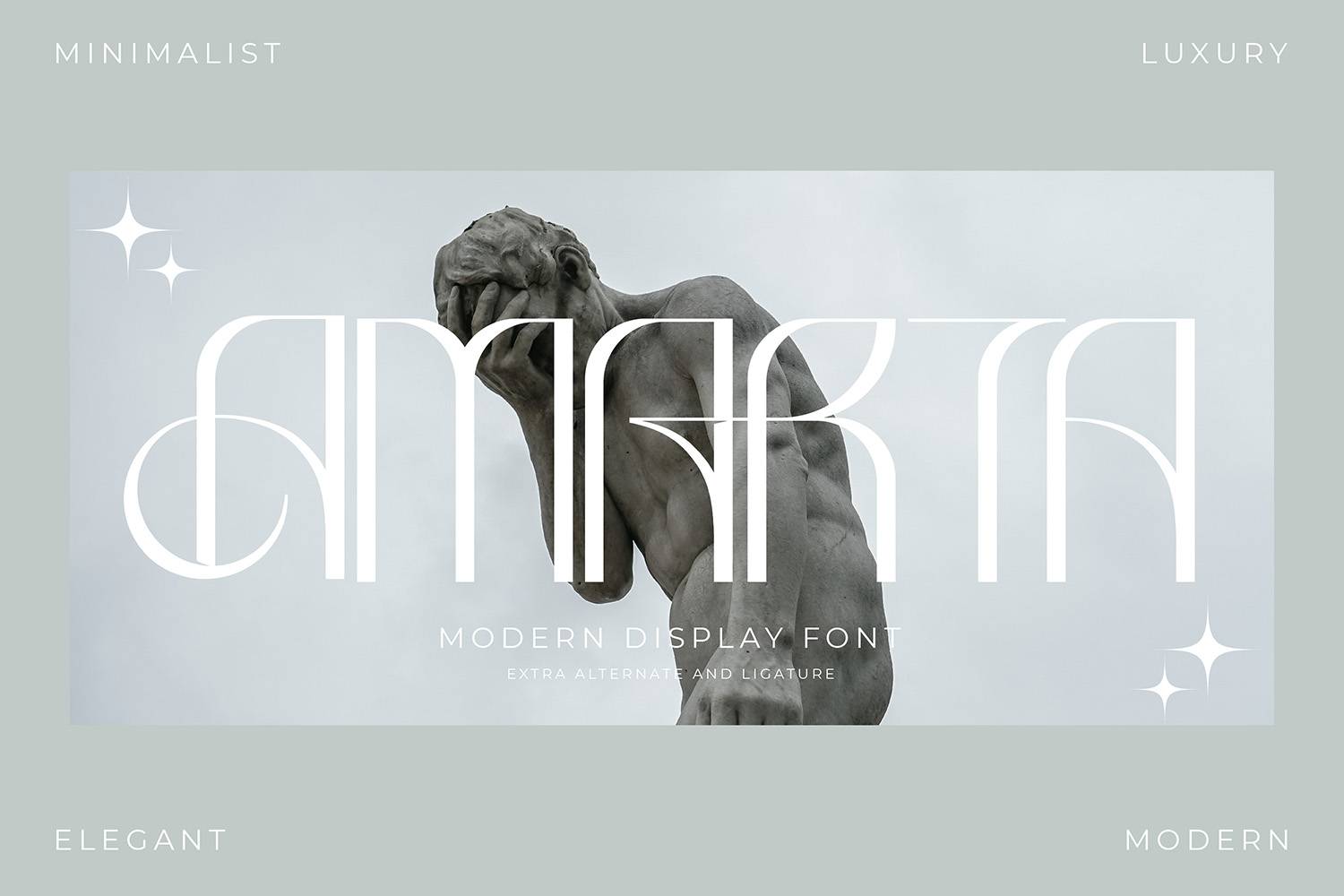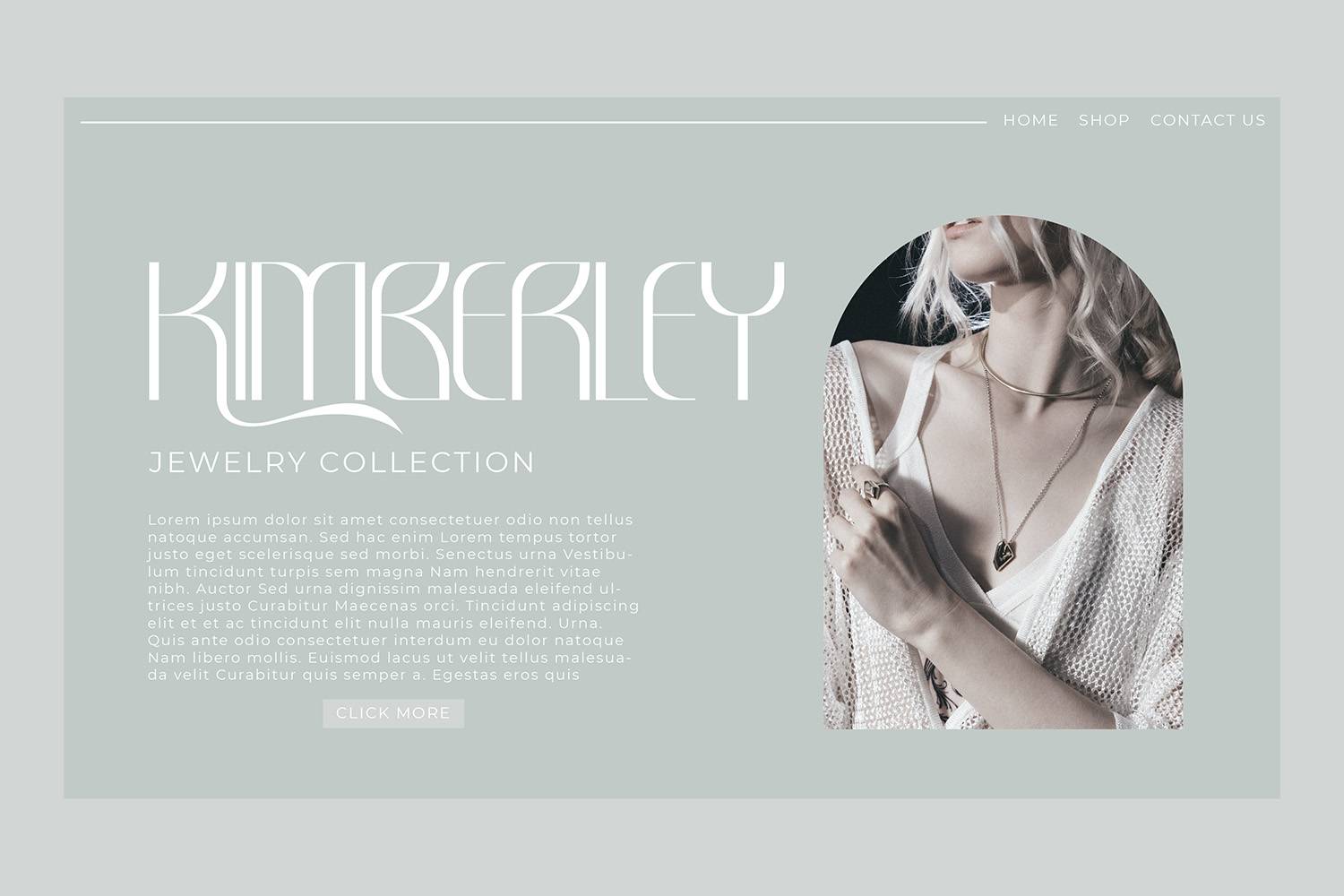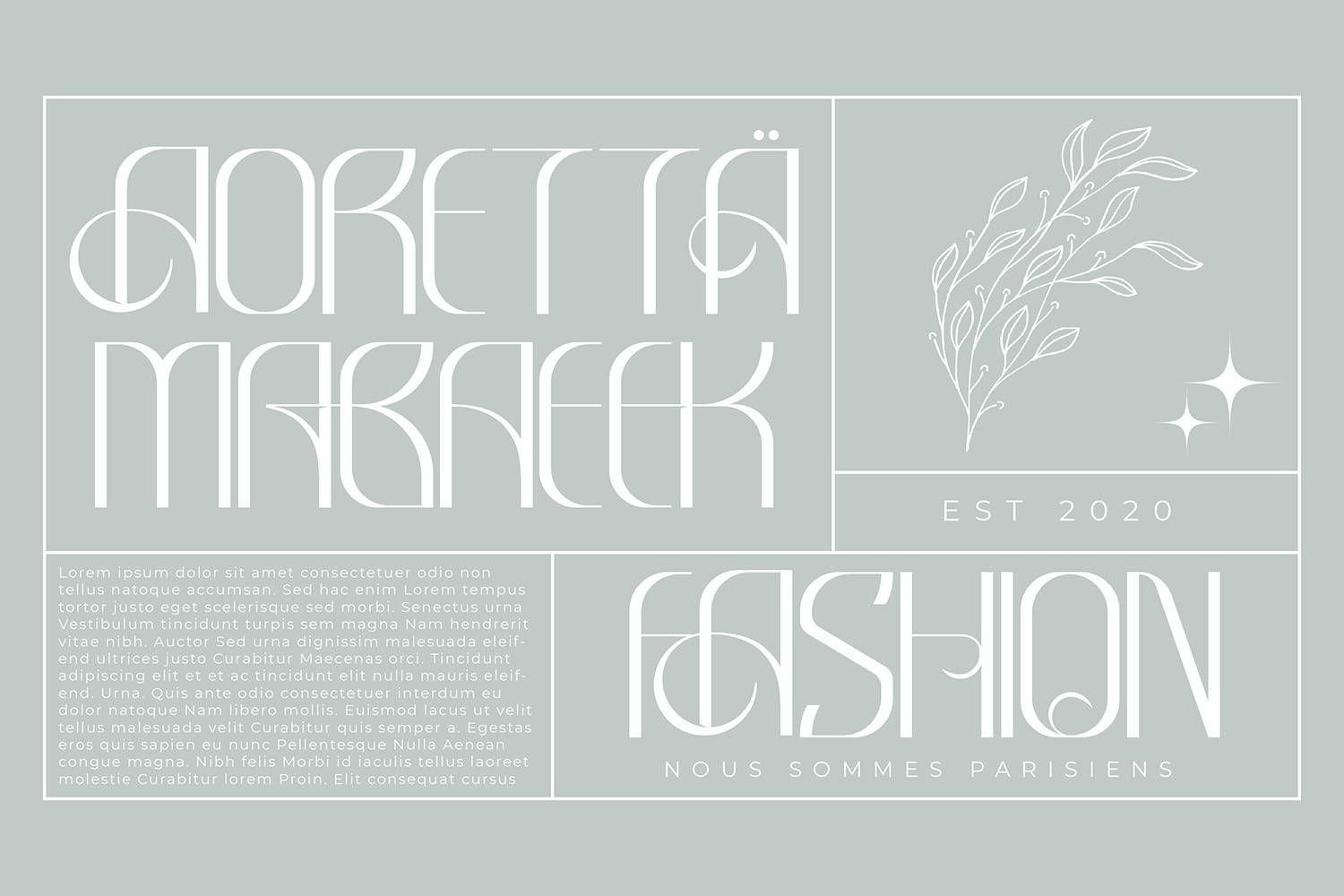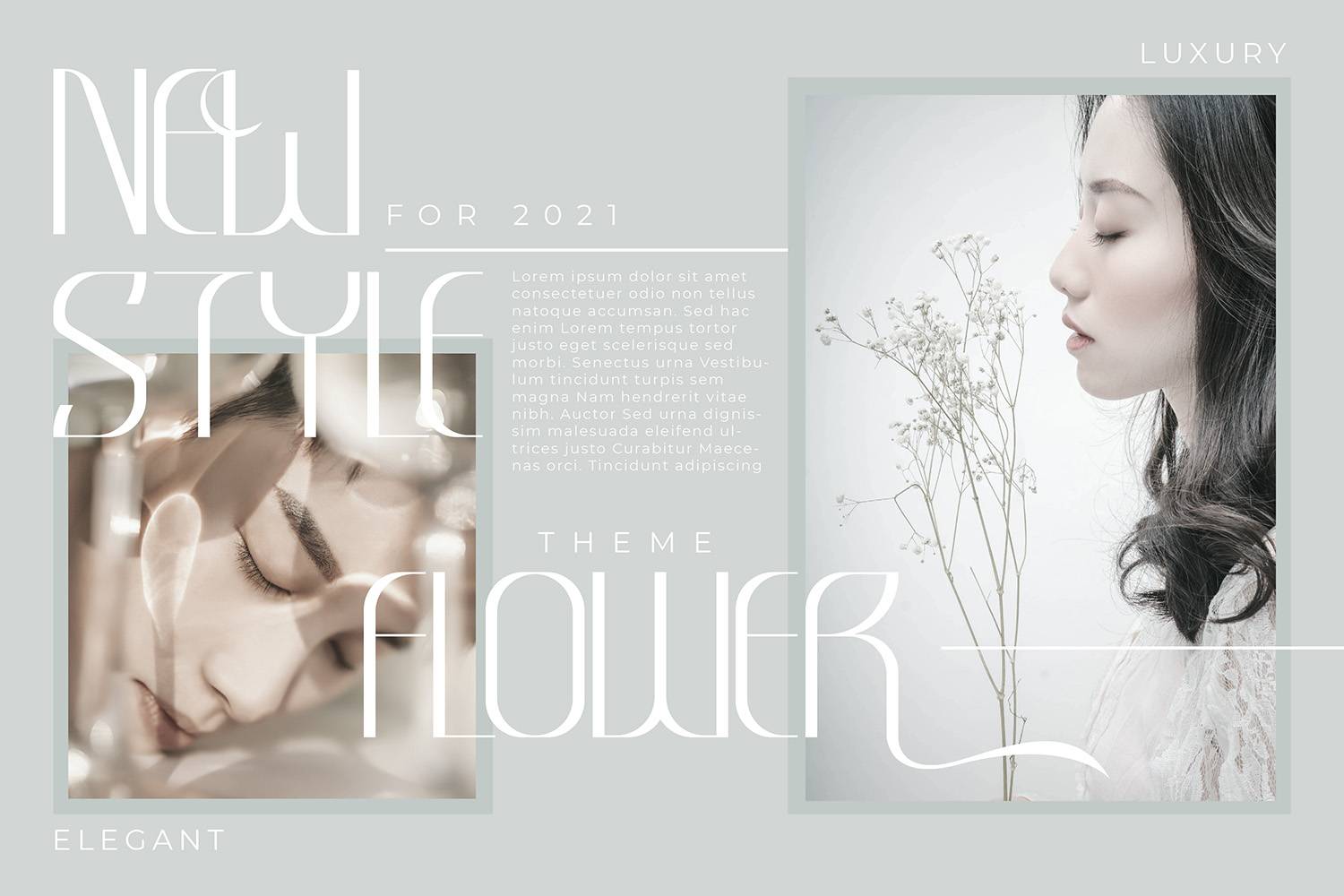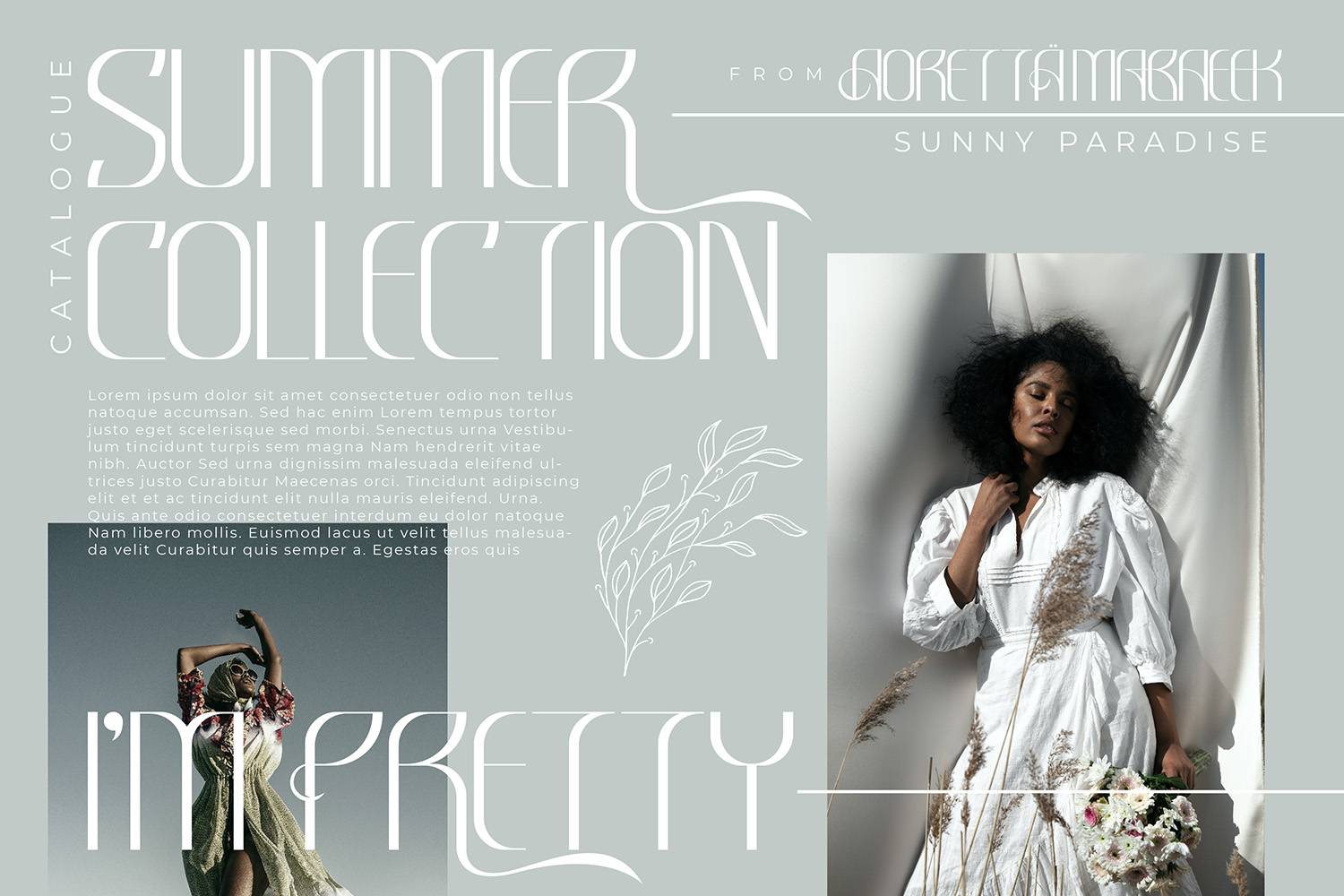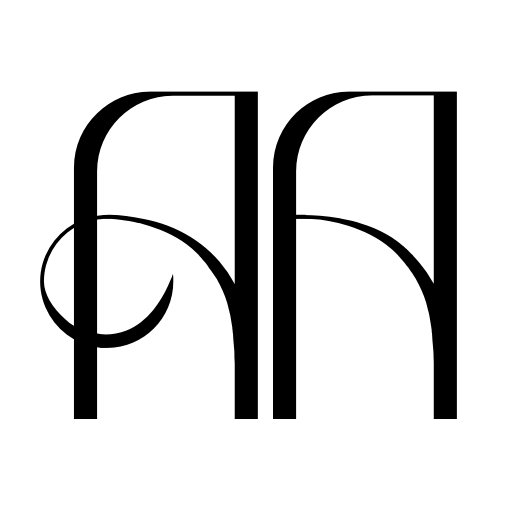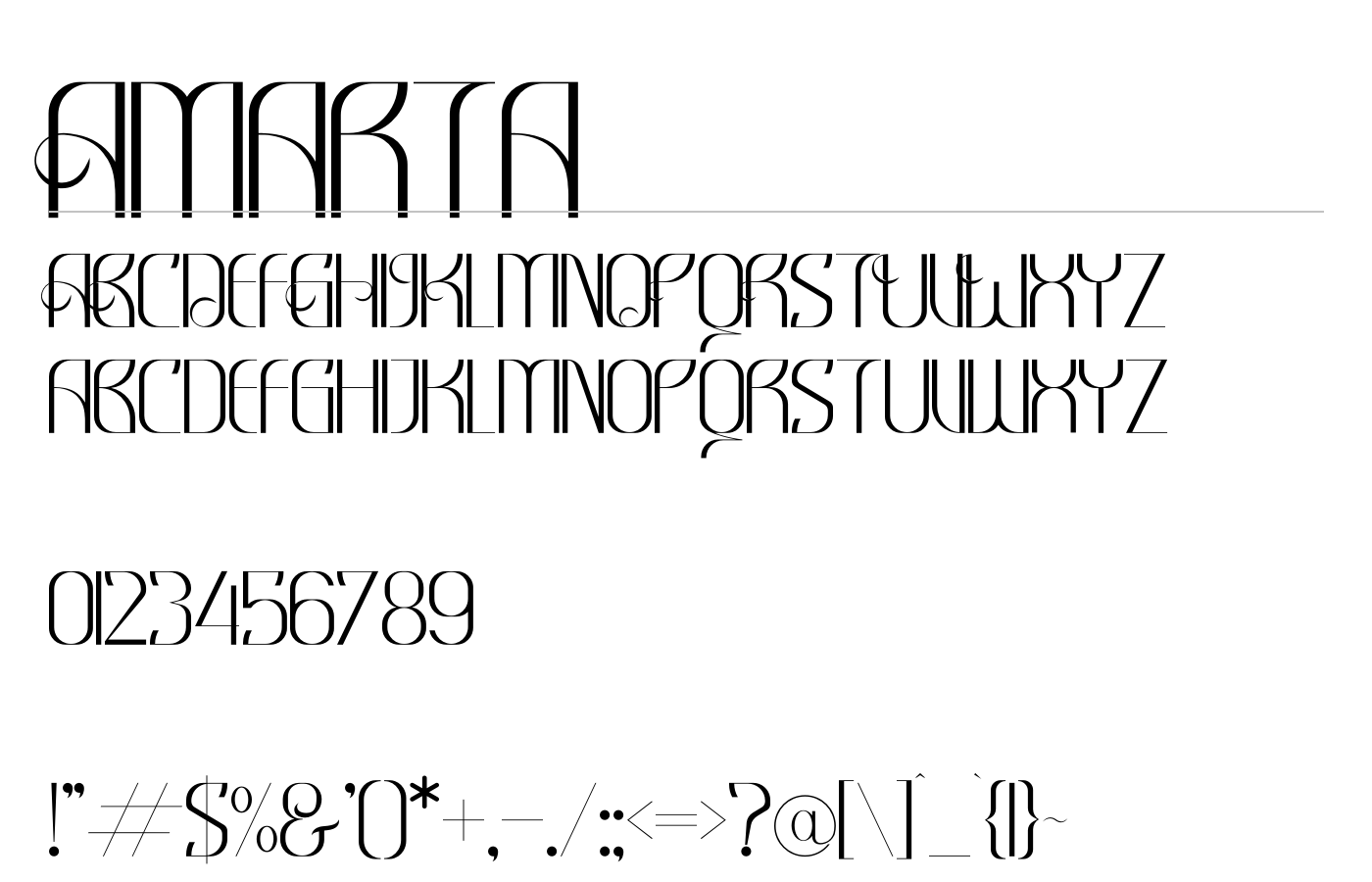
Amarta is a slender and elegant sans serif font with a modern, high-contrast design characterized by thin vertical stems and delicate curves. Its distinctive geometric and artistic letterforms, including unique flourishes and stylish terminals, give it a decorative, luxury feel ideal for fashion branding, high-end editorial layouts, and sophisticated logos. This font’s refined, narrow structure and clean lines make it perfect for headline use where elegance and impact are desired.
Amarta Font